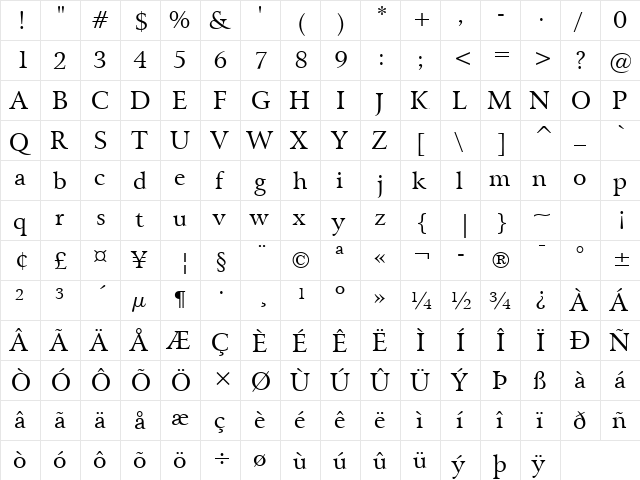
Arrus BT Roman
Design Context for Arrus BT Typeface
Arrus BT is a composed and adaptable typeface that performs quietly and consistently across a wide range of design contexts.